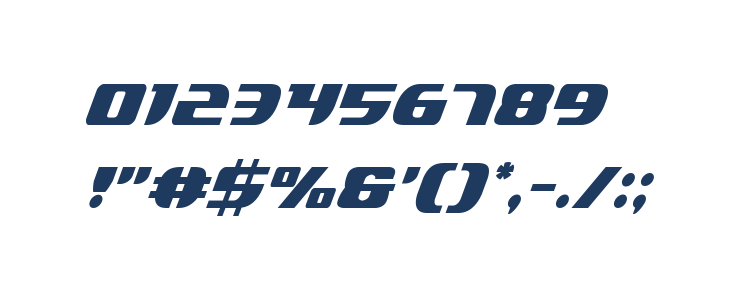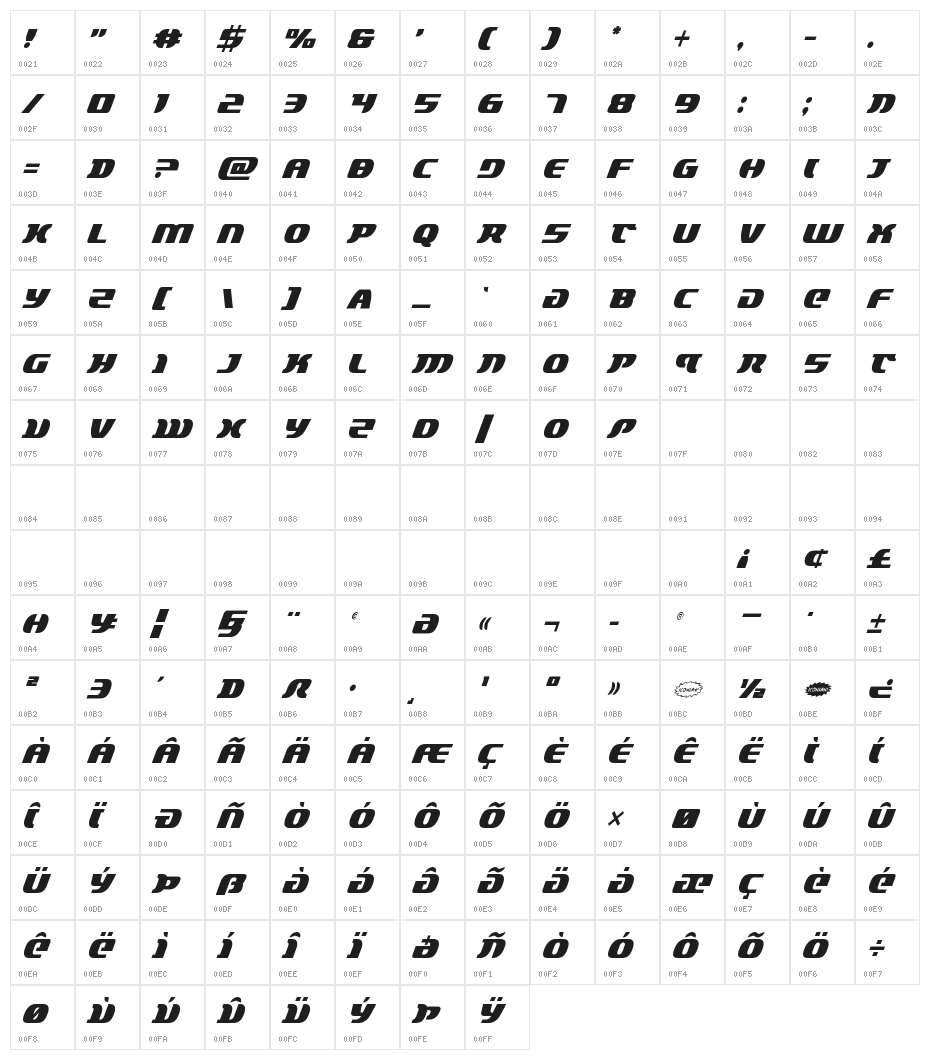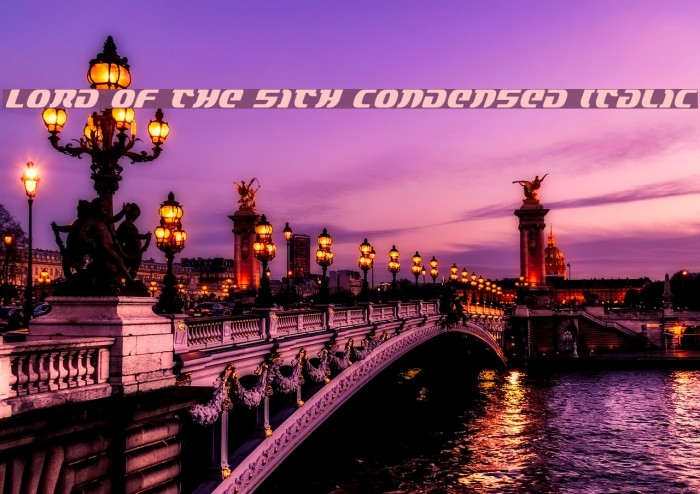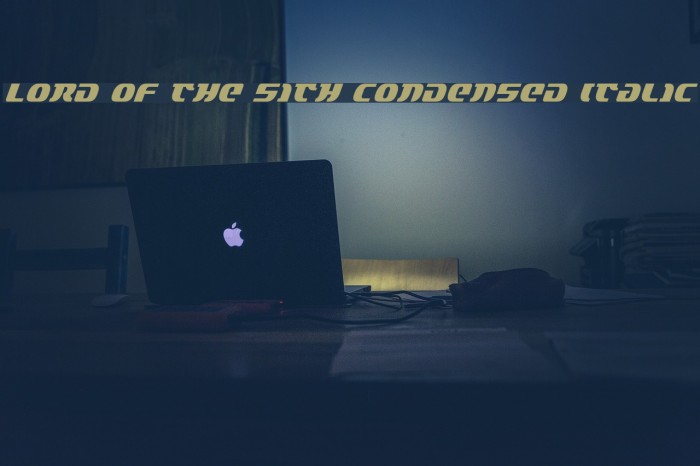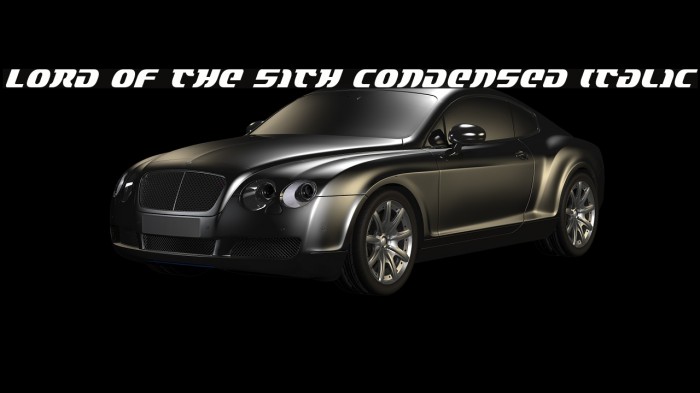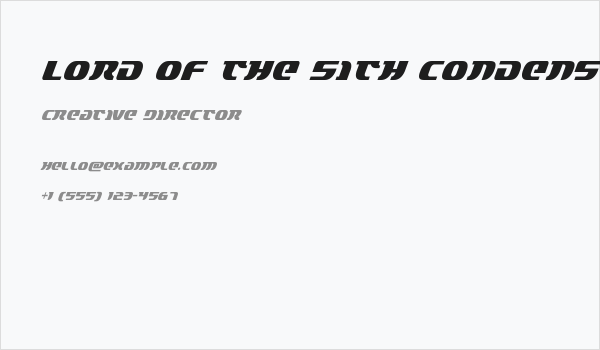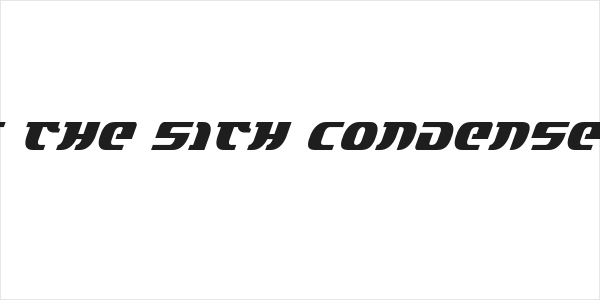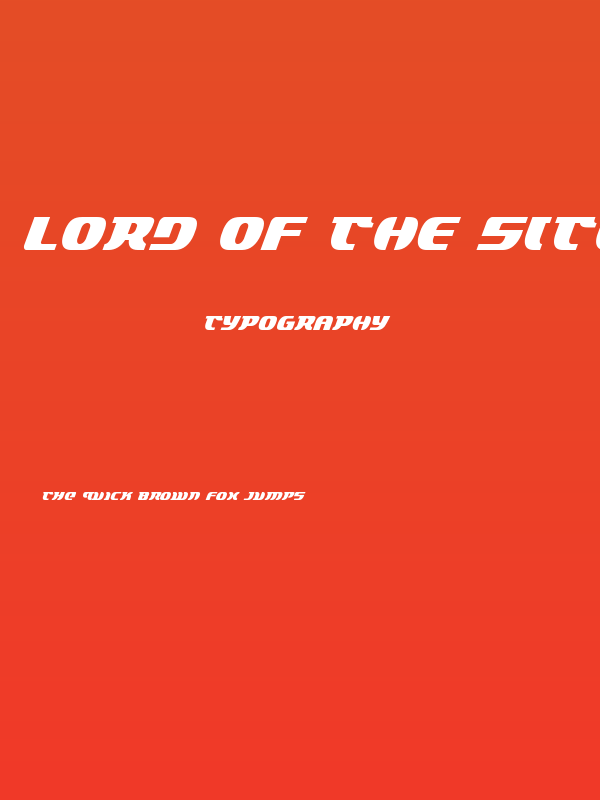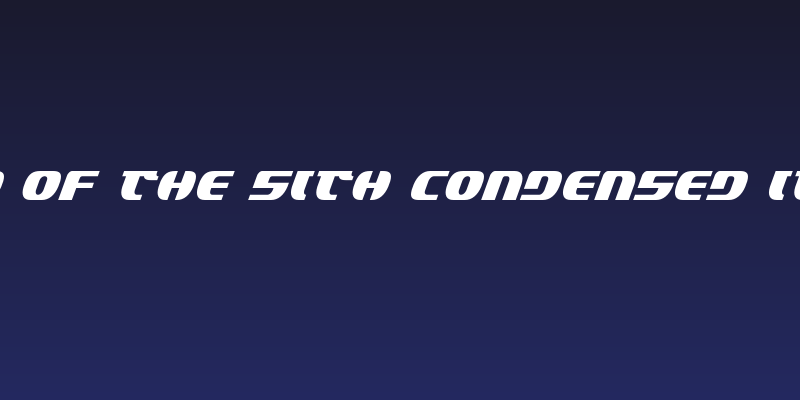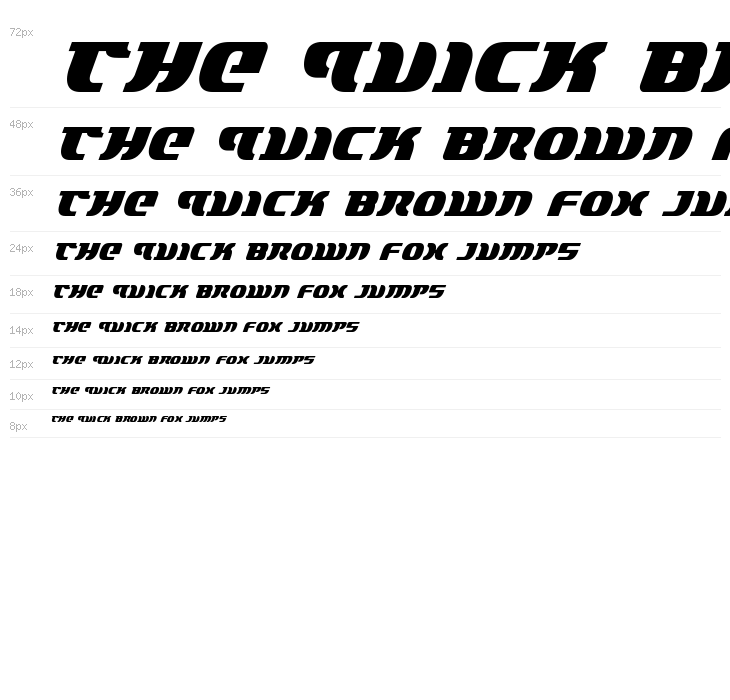
Lord of the Sith Condensed Italic Font
Lord of the Sith Condensed Italic Description
This font features a bold and dynamic design with a futuristic flair. The characters are condensed and italicized, giving them a sleek and streamlined appearance. The bold weight and angular cuts create a sense of movement and energy, making it ideal for attention-grabbing designs. The uppercase and lowercase letters maintain a consistent style, with sharp edges and a slight slant that enhances the italicized effect. Numbers and special characters are designed to match the overall aesthetic, ensuring a cohesive look across all text elements.
| Overall Style | Futuristic, Dynamic |
| Proposed Projects | Ideal for sci-fi themed posters, video game titles, branding for tech companies, and any project requiring a modern, energetic typeface. |